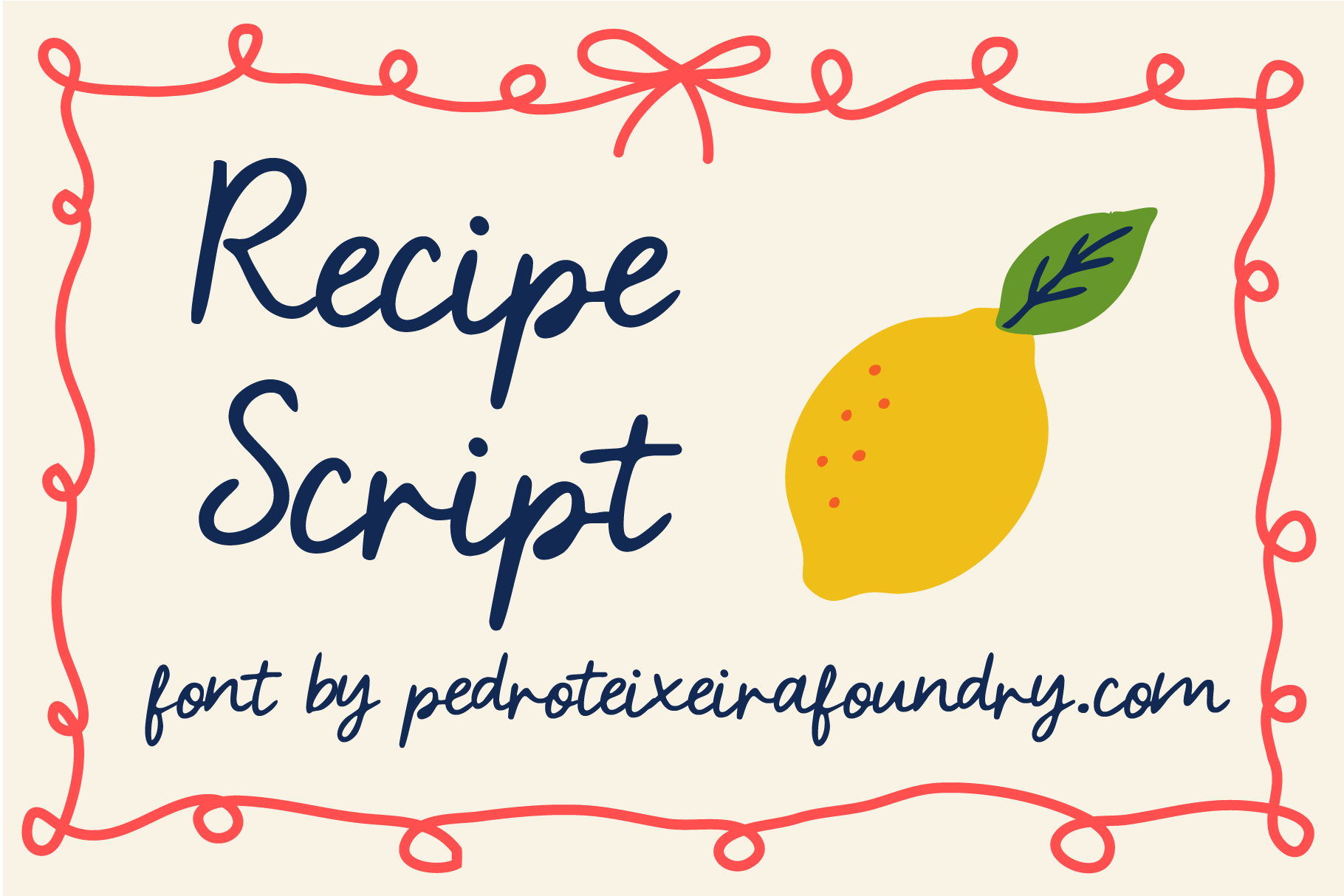
Recipe Script Font
✨ Recipe Script — Hand-Drawn Recipe & Cozy Lifestyle Font
Bring warmth, charm, and personality to every project with Recipe Script, a beautifully handcrafted script font inspired by cozy recipe cards, homemade labels, boho stationery, and those nostalgic handwritten notes we all love. This font was lovingly drawn stroke-by-stroke to capture a natural, organic feel — perfect for designers who want a touch of authenticity in their work.
Created with soft curves, playful ligatures, and subtle texture, Recipe Script instantly adds a handmade, retro-inspired, cozy atmosphere to any layout.
✨ Features
Full set of uppercase & lowercase characters
Natural handwriting flow with smooth connections
Punctuation & multilingual accents
Soft textured strokes for an authentic handwritten look
Perfect readability for both print and digital use
💛 Why You’ll Love It
Recipe Script feels personal and warm — like a handwritten message from someone you love. Designed to blend beautifully with illustrations, doodles, recipe icons, and decorative borders, it’s ideal for anyone who designs cozy lifestyle products, recipe content, or charming feminine branding.
Whether you're creating cards, stickers, planners, menus, invitations, or home-decor prints, this font adds the perfect homemade touch.